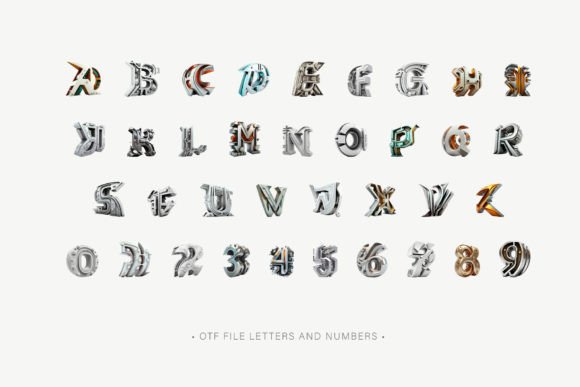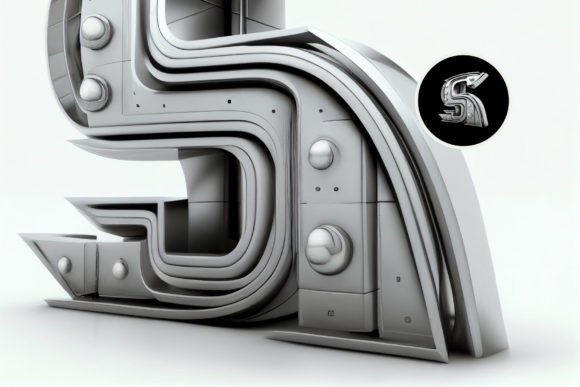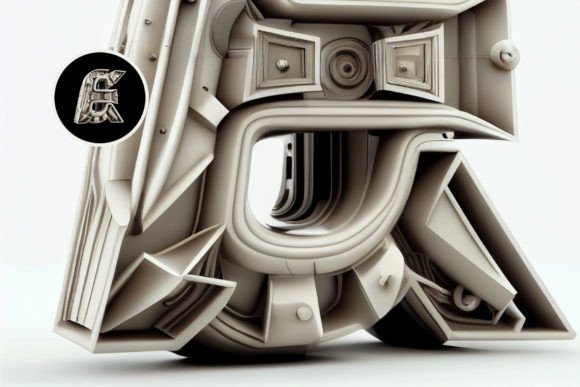
Gamer Font
About the Gamer Font
Unleash your creativity with Gamer Font, a versatile font perfect for a wide range of applications. The 3D futuristic font has a modern and technologically advanced appearance, often featuring sharp angles and 3D technological shapes. The extruded letters appear to be floating in space, giving them a three-dimensional look. This style of font is may be used in science fiction, technology-related projects, or designs that aim to convey a sense of innovation and progress.
Gamer Font is ideally suited for headlines, logos, and short impactful text in video game marketing, science fiction projects, and technological branding. Its strong three-dimensional presence commands attention but is less effective for body copy or longform text due to its reduced readability at smaller sizes. Avoid using it in user interfaces or situations requiring high legibility.
The font’s bold, futuristic personality pairs well with clean sans-serif fonts like Open Sans or Roboto for a balanced contrast, or with a geometric sans-serif like Futura for a more technologically advanced feel. For a slightly softer contrast, a neutral serif like Garamond or a more playful script could be considered, though these pairings should be used strategically.
This font projects a powerful, modern, and technologically advanced image, ideal for brands emphasizing innovation and futuristic concepts. It’s best used sparingly to maximize its impact and avoid overwhelming the design.